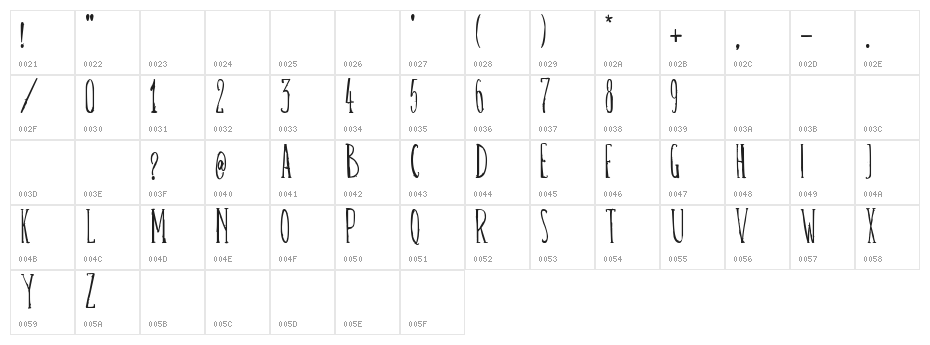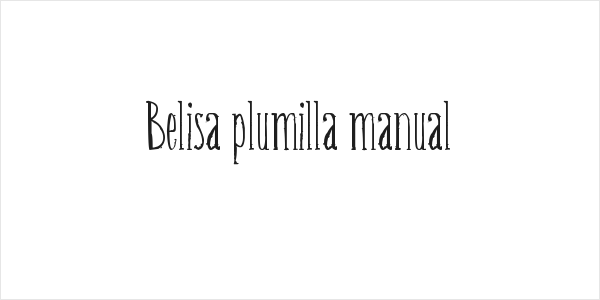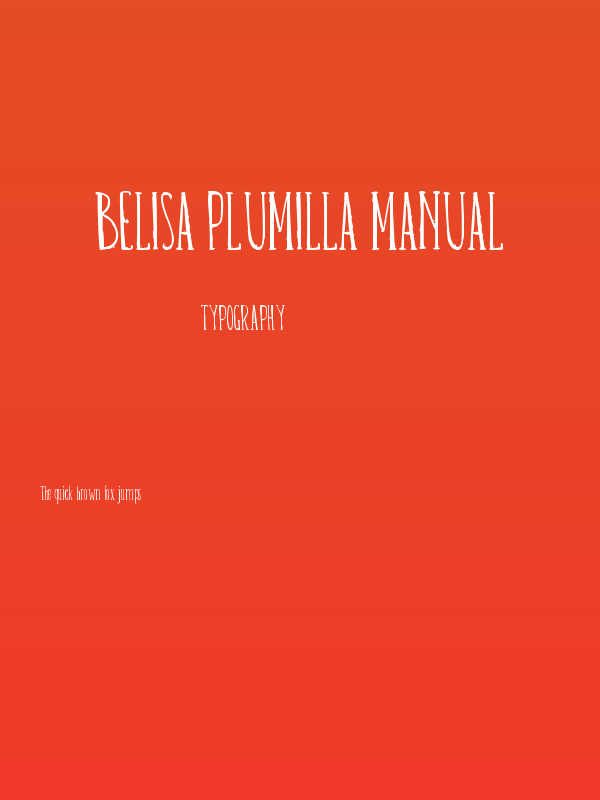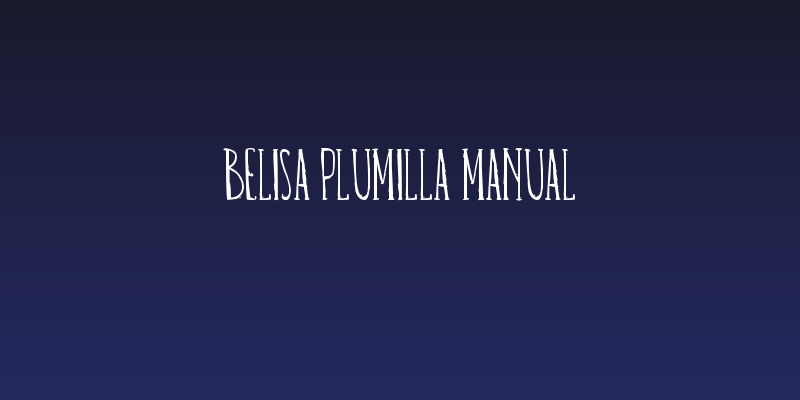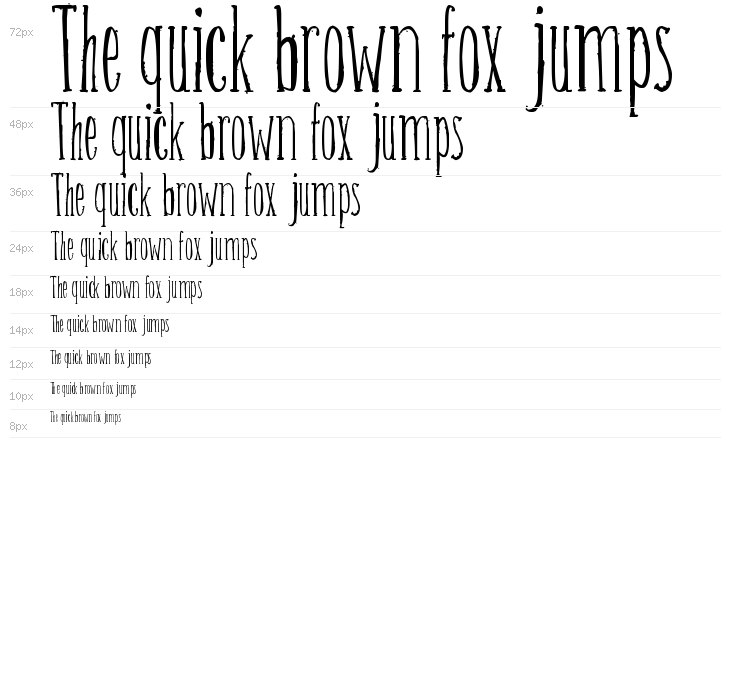
Belisa plumilla manual Font
Belisa plumilla manual Description
This font features a distinctive, hand-drawn style with elongated, narrow characters that give it a whimsical and artistic appearance. The uppercase letters are tall and slender, with a playful unevenness that adds character. The lowercase letters maintain a similar style, with some letters having unique flourishes and curves. The numbers are consistent with the overall design, maintaining the same narrow and elongated form. Special characters are creatively integrated, adding to the font's artistic flair. The overall look is reminiscent of a vintage or rustic aesthetic, making it suitable for projects that require a touch of personality and charm.
| Proposed Projects | Ideal for artistic projects, invitations, posters, and branding that require a unique, handcrafted look. |